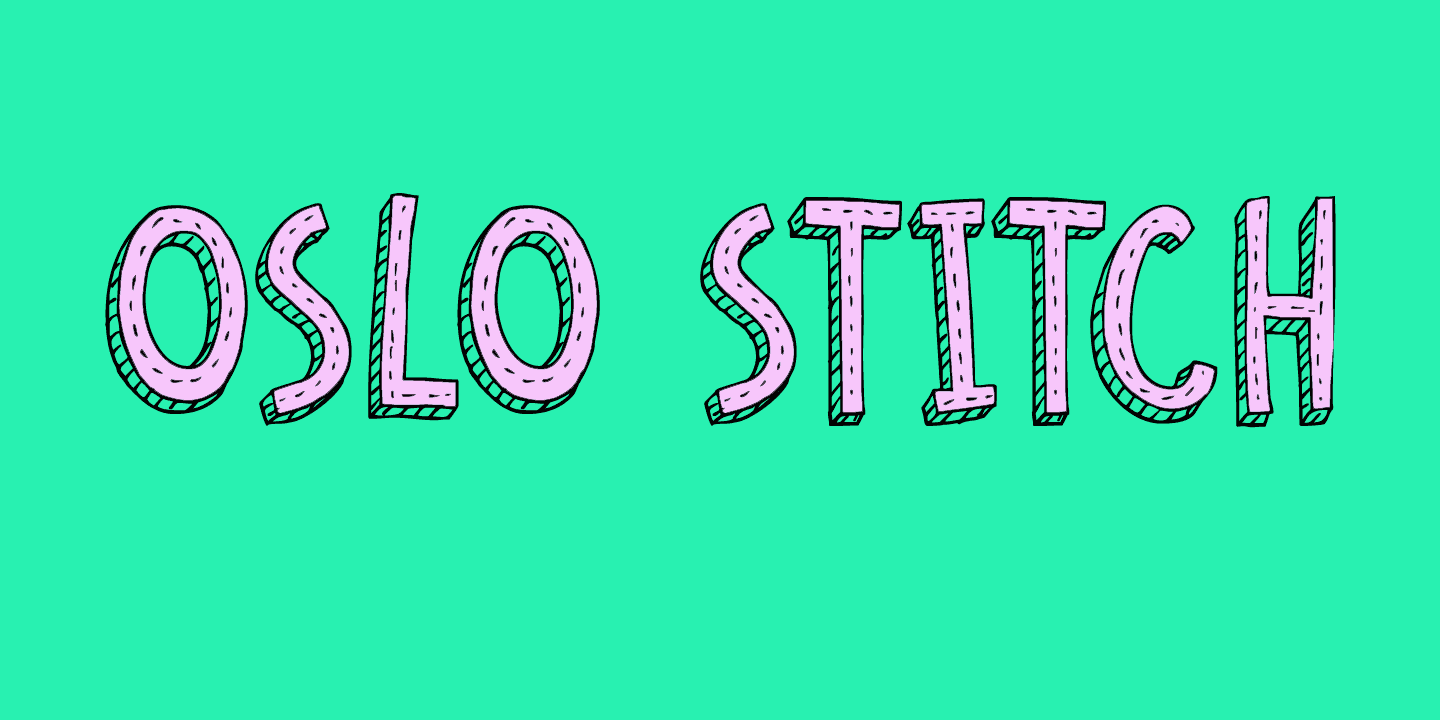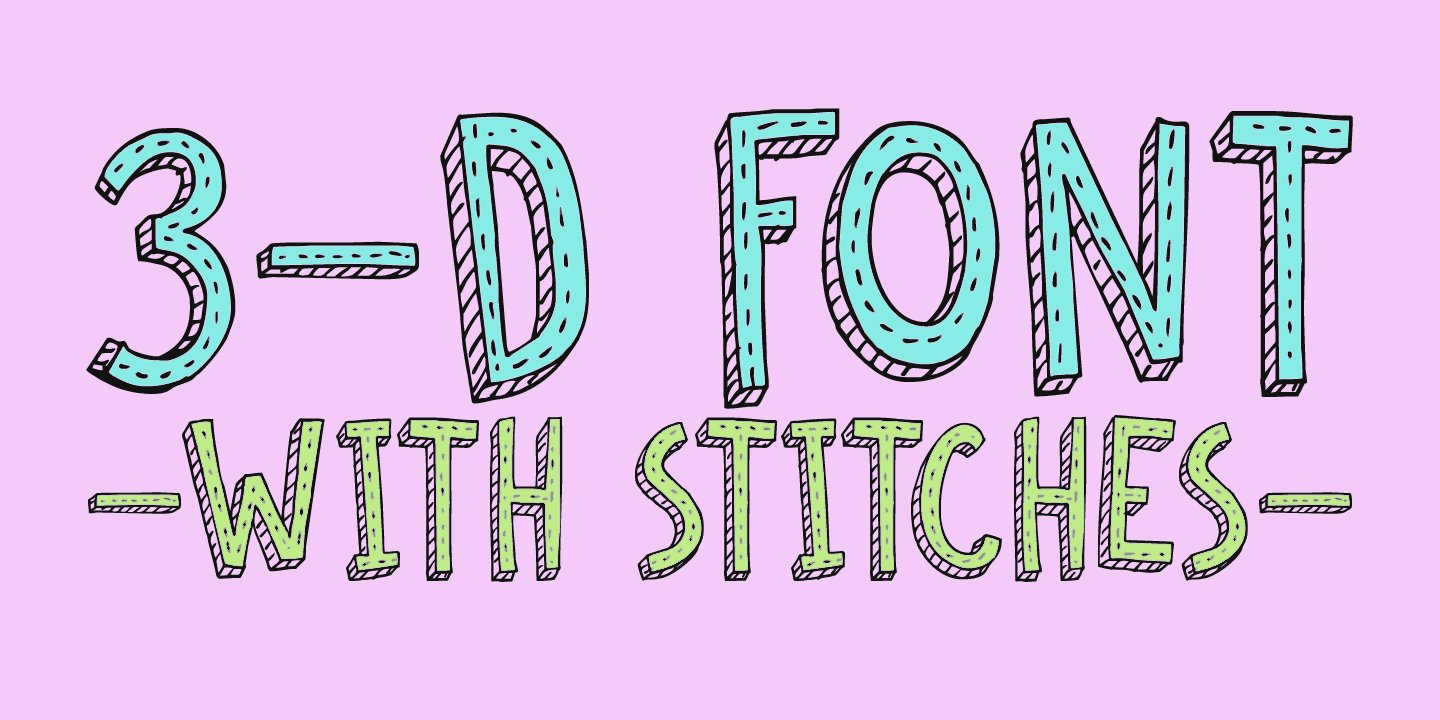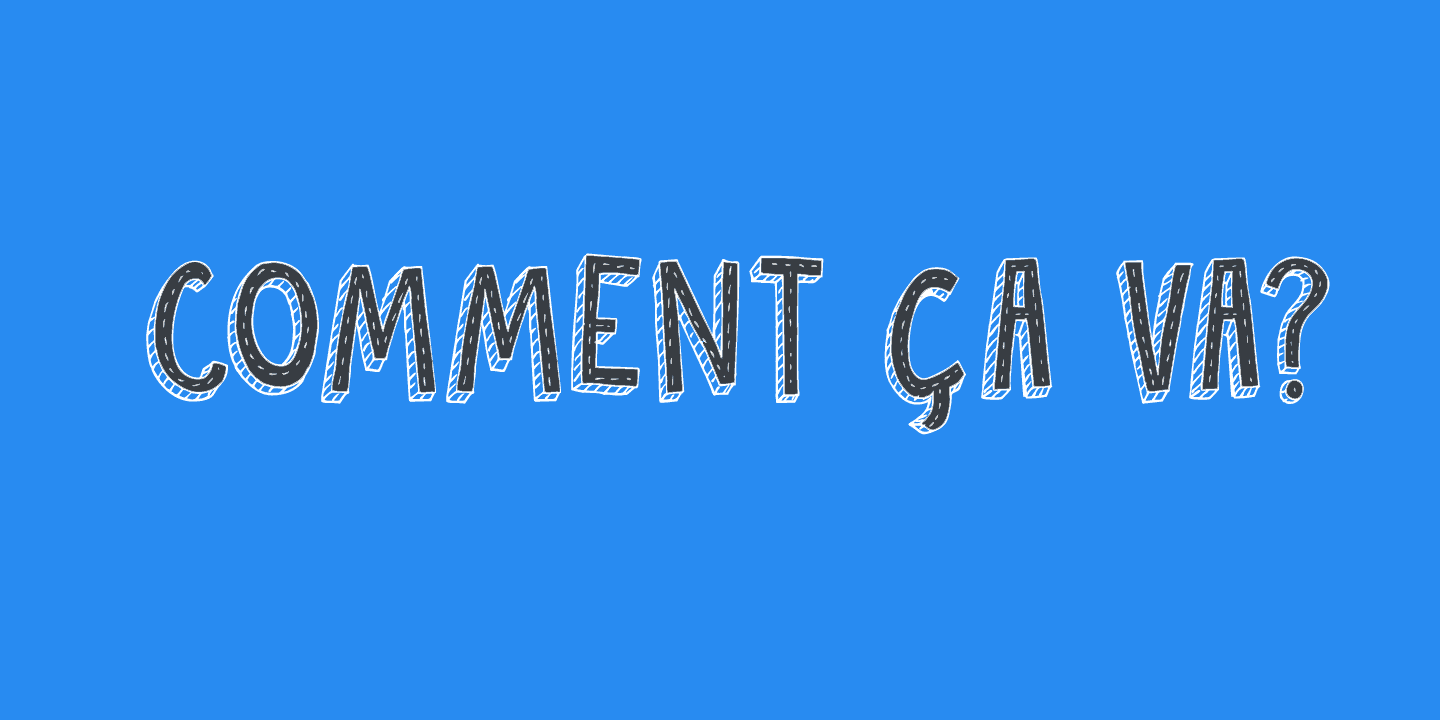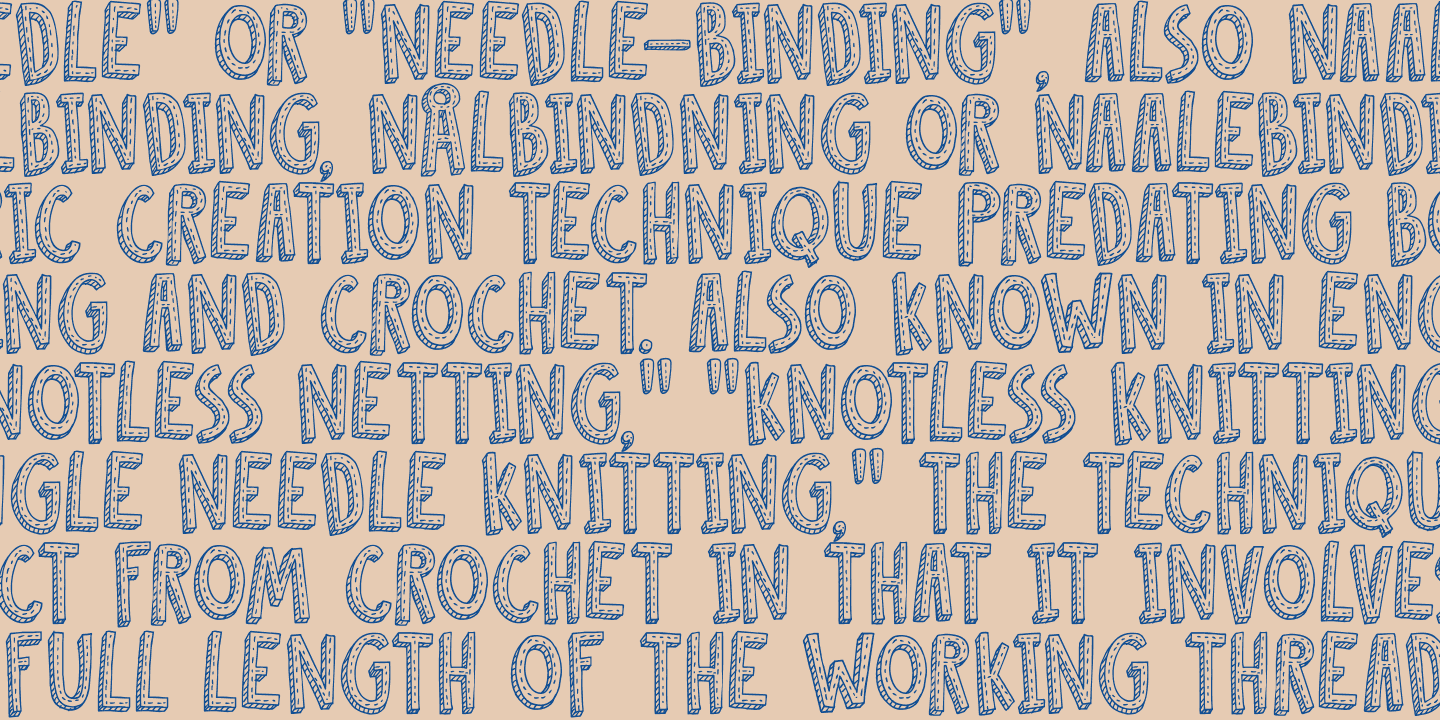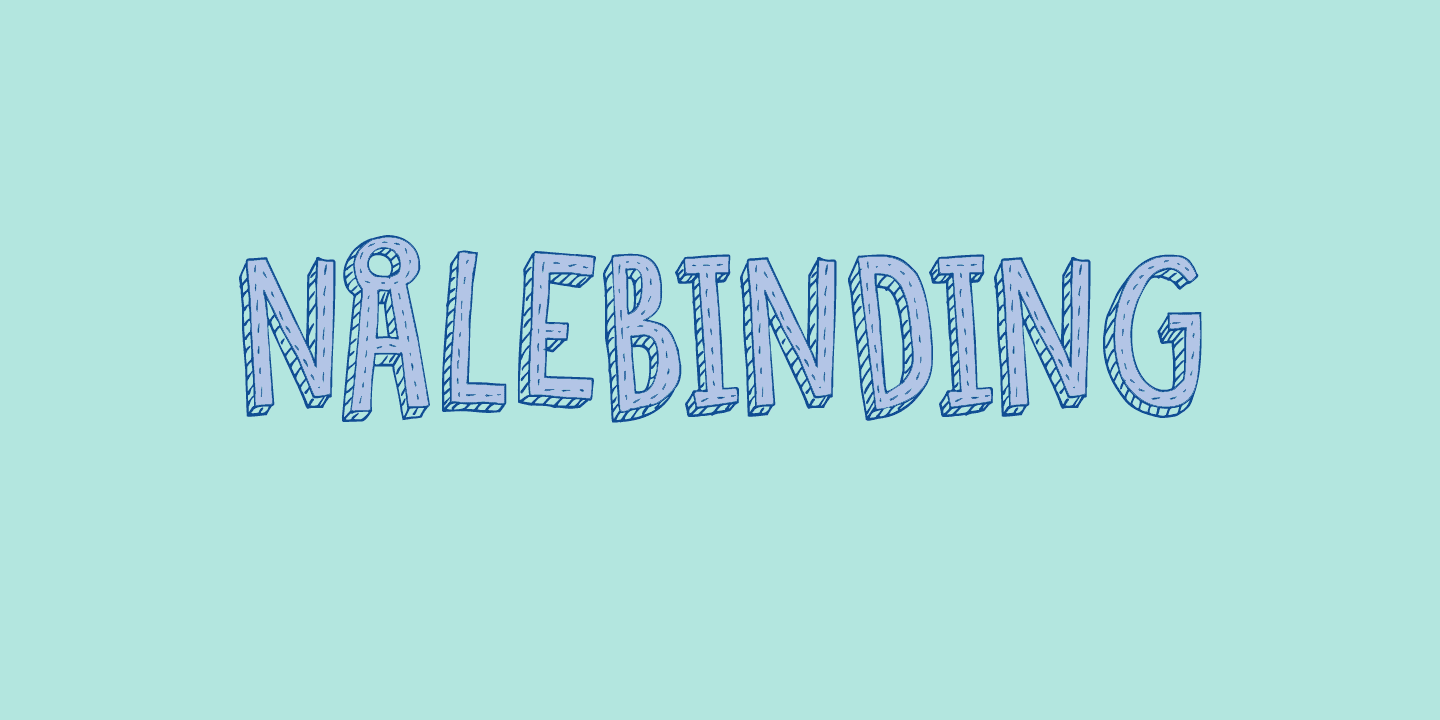
Oslo Stitch (1 font)
Oslo Stitch font is a nice, handmade, all caps font, which you can use for your book covers, posters and anything else that needs a bit of stitching up.